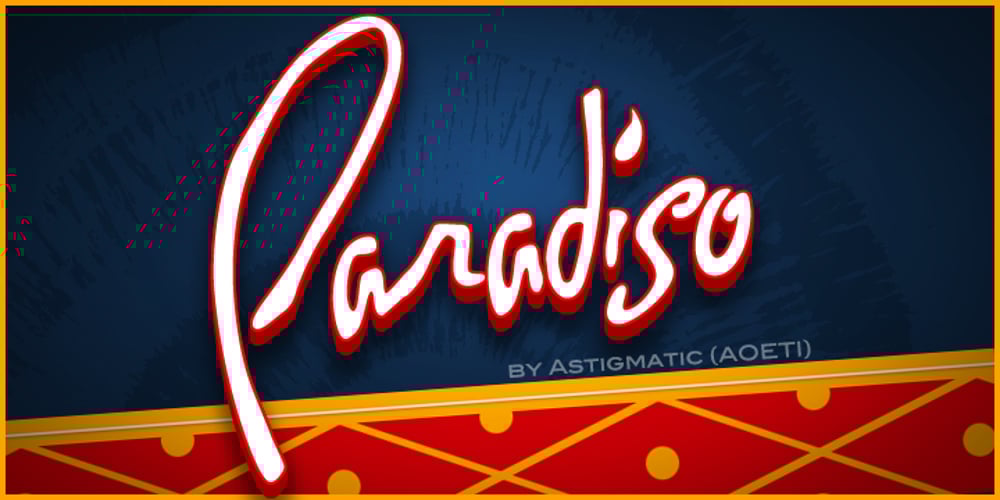
Paradiso AOE
Paradiso AOE font
Paradiso AOE Font Family was designed by Brian J. Bonislawsky and published by Astigmatic. Paradiso AOE contains 1 styles and family package options. Inspired by logotype of the Paris Resort and Casino in Las Vegas comes the Paradiso typeface, complete with an unusual array of leaning and unusually large capitals versus a petite lowercase that have a loosely drawn feel. Definitely a typeface with capitals to be used in moderation!